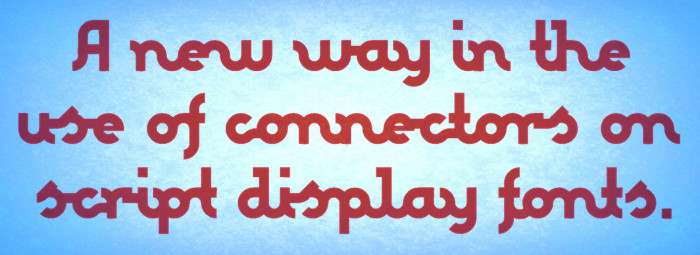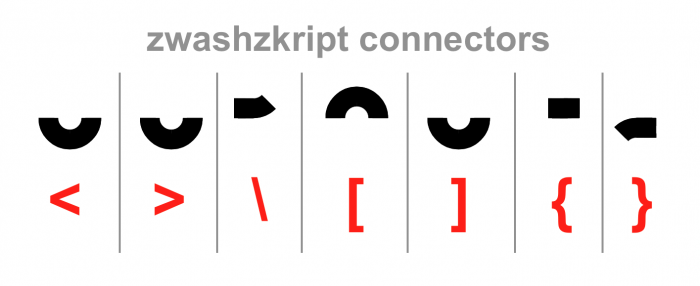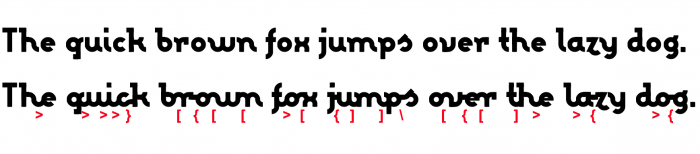
I've already gotten into another mess. Again a "2-in-1" font. It may work as is, but if you want to convert it to a script one you have to use some connectors between the letters, placed in the glyphs <, >, \, [, ], {, }. You must try each of them between two characters because there are many possible combinations. I add some samples down here. Don't worry and be patient, please, the result is worth it. Oh well, the actual "</>" glyphs are finally in the "©/™". To see all working, copy and paste the following sentence in the User Input window, please: Th>e q>u>i>c}k b[r{o[w[n f>o[x j{u]m]p\s o[v{e[r t]h>e l>a{zy d>o{g.
@elmoyenique - What a wonderful set of expansion characters! They really add to the versatility of this design. :^) I would venture to say that not every letter in a word needs to be "only" connected or "only" separated; combining separate and connected letters in individual words would result in innumerable unique combinations.
Dear @Goatmeal: Thanks a million once again for your continued support and encouraging comments. You're right in your tight appraisals, as usual. Not all the letters must be connected (in addition, that would require a much greater number of specific connectors), and in fact there are pairs of them that it's practically impossible to join them and they are frankly better with a small separation. This is a curious subject, and a real mess in which I have gotten myself and from which I have tried to get out as well as possible. It started with a "What if...?" and it still hasn't stopped. Thanks again for understanding, compañero.
That s is beautiful and the z is amazing.
What a great concept. I love how this gives the person working with it a lot of options.
How did you get the curves?